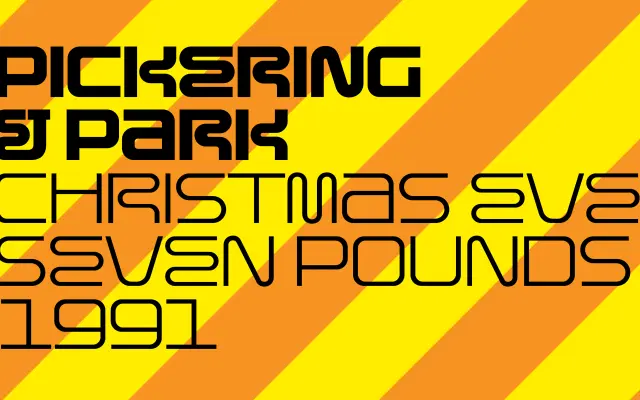
F37 Foundry · Leo Philip, Rick Banks, Shaqa Bovand · 2018
A wide, square, industrial techno sans drawn from Tony Panas' flyer lettering for The Haçienda, expanded by F37 across five widths and six weights.
A techno display sans by Leo Philip, Rick Banks and Shaqa Bovand, based on Johnson Panas' flyer and ticket designs for Manchester's Fac51 The Haçienda nightclub. Originally drawn by the late Tony Panas, F37 digitised and expanded the character set into a wide, square, industrial system that runs across six weights from Thin to Black in five widths from Condensed to Expanded. Several unusual stylistic variants add a contemporary twist. Reach for it on music, nightlife, sportswear and brand work that wants Manchester rave-era attitude.
F37 classifies F37 F51 as techno, drawn from Johnson Panas' flyer and ticket designs for Manchester's Fac51 The Haçienda nightclub, with five widths from Condensed to Expanded and several unusual stylistic variants.